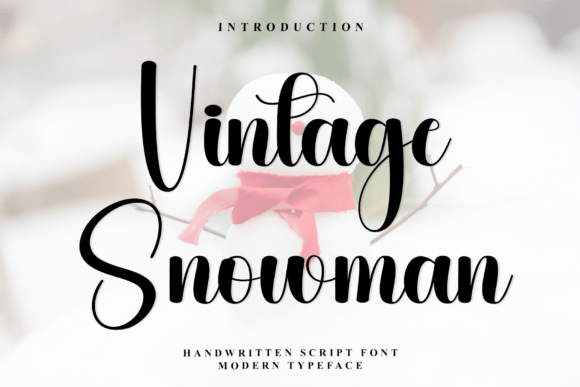
Vintage Snowman Font for Modern Web Design
I was staring at a hero section that felt flat. The client, a boutique ceramics studio launching their new online shop, wanted something that felt handmade yet expensive. The layout had plenty of white space and high-resolution product photography, but the headline lacked soul. I needed a typeface that could bridge the gap between artisanal craft and digital polish. That is when I pulled Vintage Snowman from my library. As a modern handwritten script font from Script Amp, it promised the refined elegance the brand needed without sacrificing the personal touch essential to their story.
Testing a new font in a live web environment is always a moment of truth. Does it hold up on mobile? Does it clash with the navigation? With Vintage Snowman, the initial render was striking. It is not just a script; it is a piece of professional artistry designed for high-end branding. The strokes are fluid, connecting with a natural rhythm that mimics genuine handwriting while maintaining the structural integrity required for screen readability.
Establishing Visual Hierarchy in Digital Layouts
In web design, typography dictates how users scan content. A display font like Vintage Snowman commands attention immediately. I placed it in the main H1 tag of the landing page, set against a soft, neutral background. The contrast was immediate. The font’s luxurious personality elevated the perceived value of the entire page. It signaled to visitors that this was not a mass-produced commodity but a curated experience.
However, using a script font requires discipline. I reserved Vintage Snowman strictly for headlines, short subheadings, and decorative accents. Using it for body copy would have been a disaster for readability. Instead, I paired it with a clean, geometric sans serif font for the main text. This combination created a balanced visual hierarchy. The script drew the eye, while the sans serif provided clarity and ease of reading. This is a classic technique in editorial design and modern typography, ensuring that the brand identity feels cohesive without overwhelming the user.
Readability Across Devices and Contexts
One of my primary concerns was mobile responsiveness. Script fonts can often become illegible on smaller screens if the letterforms are too intricate or the spacing is too tight. Vintage Snowman surprised me here. Its refined design includes generous spacing and distinct character shapes that remain clear even when scaled down for tablet and smartphone views. I tested the font over various backgrounds, including light overlays on product images and solid dark sections for footers. It maintained its legibility and charm in both scenarios.
For UI designers, this versatility is crucial. Whether you are designing a course sales page, a coaching website, or a portfolio homepage, the font must perform consistently. I found that Vintage Snowman worked exceptionally well for short phrases and call-to-action areas where a touch of personality was needed. For instance, using it for a "Shop Now" button label added a unique flair, though I ensured the size was large enough to be easily tappable. On dark backgrounds, the lighter weights of the font shone brightly, creating a sophisticated contrast that felt premium and intentional.
Enhancing Brand Trust and Engagement
Brand trust is built through consistency and professionalism. A sloppy or overly casual font can undermine a business’s credibility, especially in competitive niches like luxury goods or professional services. Vintage Snowman embodies a level of refinement that suggests attention to detail. When users encounter this level of typographic care, they subconsciously associate it with the quality of the product or service being offered.
In the context of a digital brand kit, this font becomes a cornerstone asset. It is not just about aesthetics; it is about communication. For a creative portfolio, it adds a personal signature feel. For a small business website, it humanizes the brand. I used it sparingly in the footer for a signed-off message, which added a warm, personal connection to the otherwise structured layout. This subtle use of a handwritten font can significantly boost user engagement by making the digital experience feel more human and less automated.
Practical Considerations for Web Implementation
Before finalizing any font choice for a client project, I always check the technical specifications. Vintage Snowman comes with the necessary webfont availability and file formats to ensure fast loading times. Speed is a critical factor in UX, and heavy font files can slow down a site. Fortunately, this typeface is optimized for web performance, allowing for smooth rendering without compromising visual quality.
I also reviewed the included styles and alternates. Having access to different ligatures and stylistic sets allows for greater customization. In logo design or packaging design applications, these alternates can help create a unique mark that stands out. For web use, I stuck to the standard glyphs to ensure cross-browser compatibility, but knowing those extras were available gave me confidence in the font’s versatility for future print or social media graphics needs.
Ultimately, choosing Vintage Snowman was about more than just picking a pretty typeface. It was about selecting a tool that enhanced the user experience, reinforced the brand’s high-end positioning, and delivered a seamless visual journey across all devices. For web designers and digital creators looking to add a touch of luxurious personalization to their projects, this font offers a reliable and elegant solution.